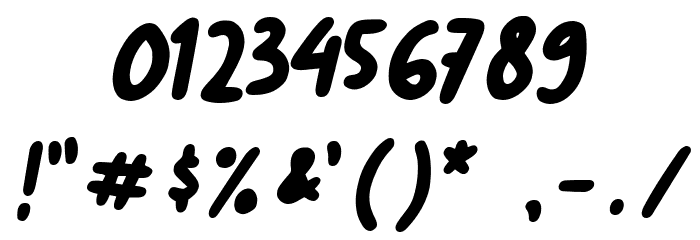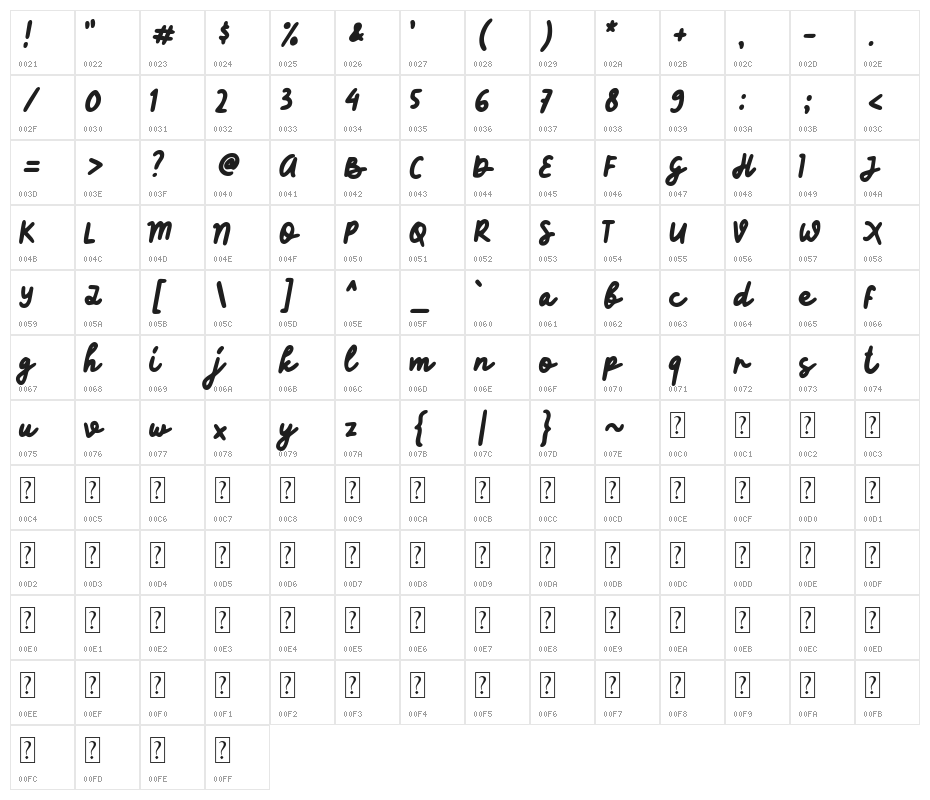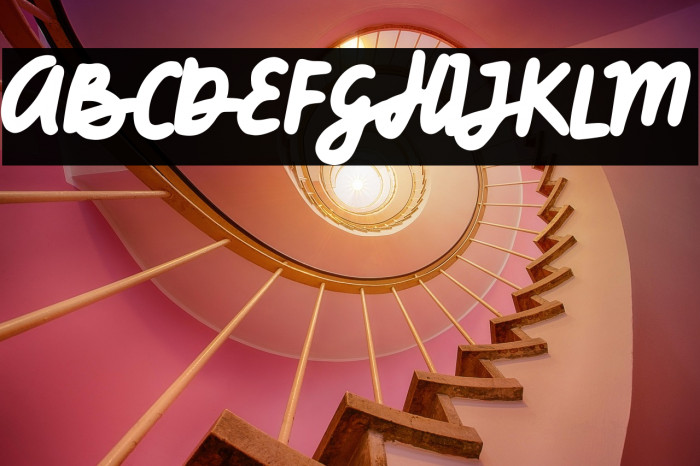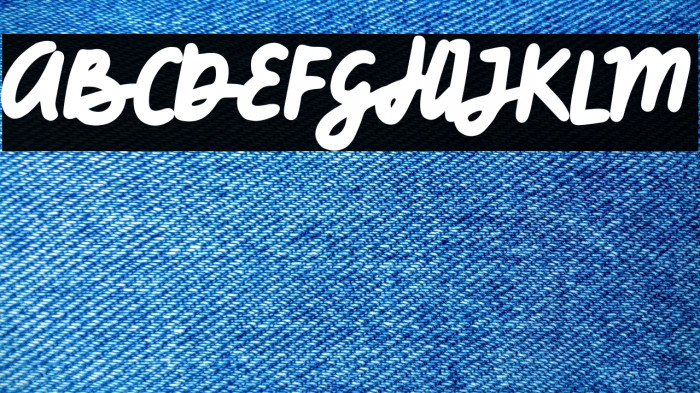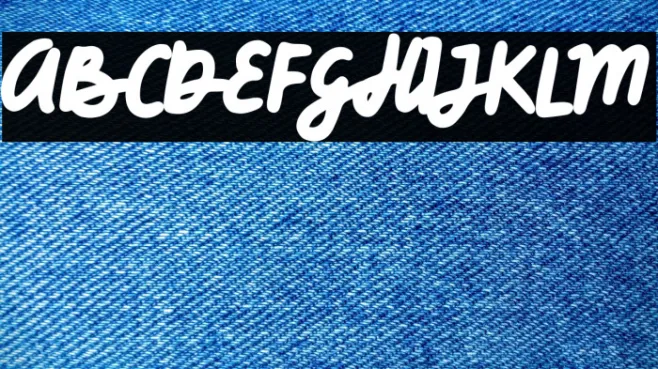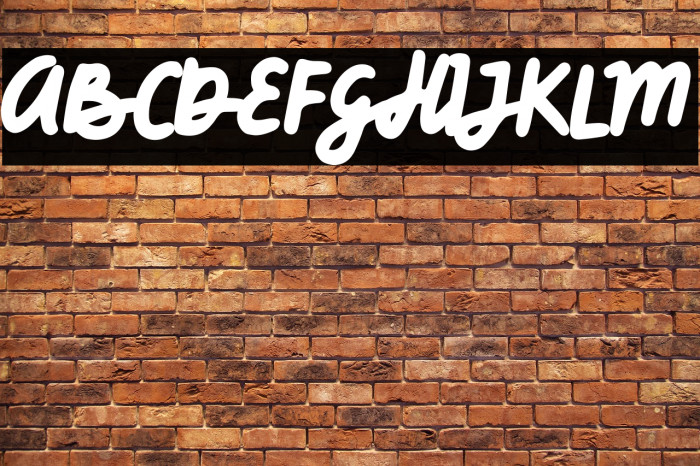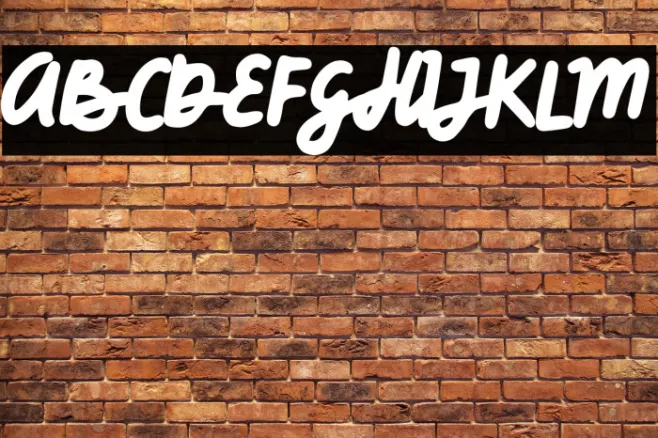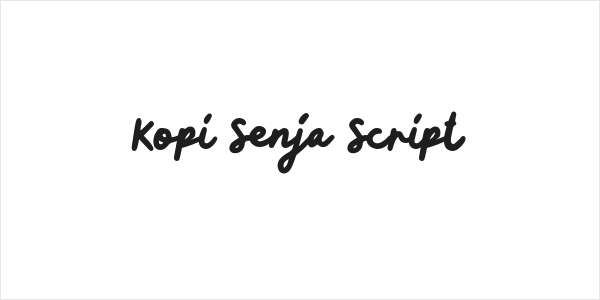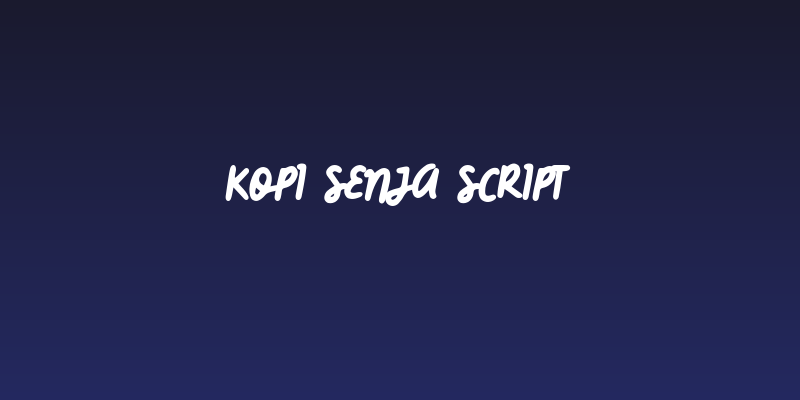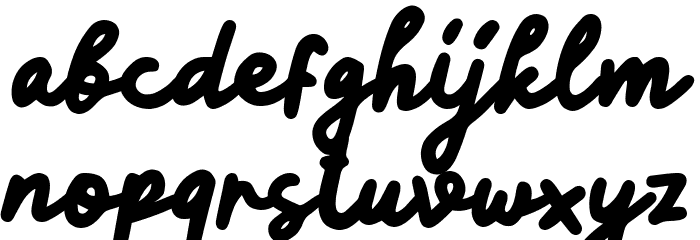
Kopi Senja Script Font
Kopi Senja Script Description
This font exudes a lively and playful script style, characterized by its bold, flowing strokes and smooth curves. The letters are interconnected, creating a sense of continuity and movement. The uppercase letters maintain a consistent height, while the lowercase letters exhibit a slight slant, enhancing the dynamic feel. The numbers and special characters are designed with the same fluidity, ensuring a cohesive look across all elements. This font is ideal for projects that require a personal touch, such as invitations, greeting cards, or branding materials.
| Overall Style | Playful, Dynamic |
| Proposed Projects | Ideal for invitations, greeting cards, branding, and creative projects. |